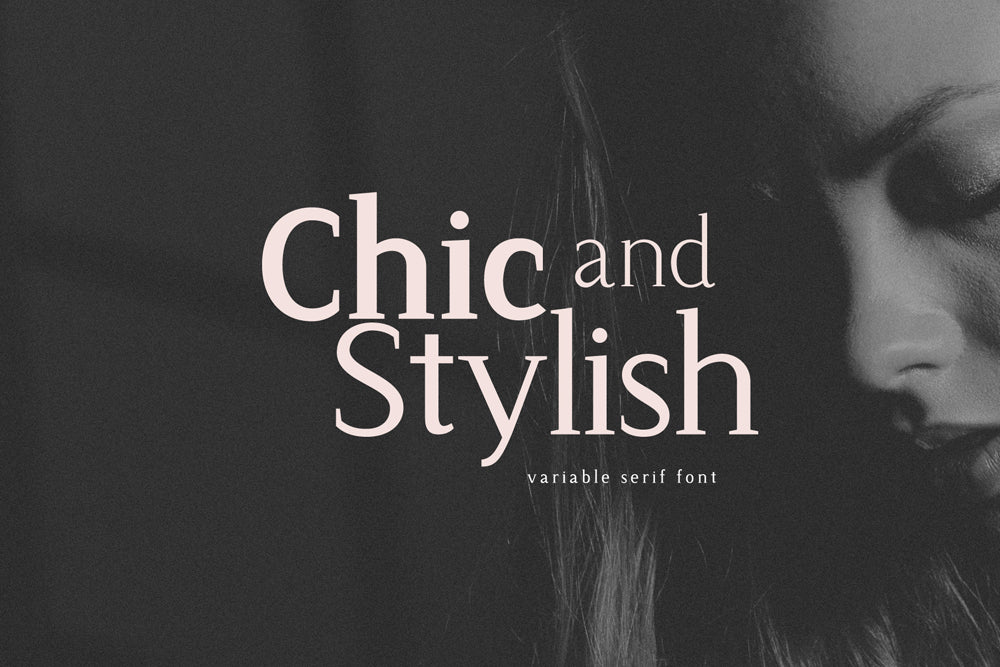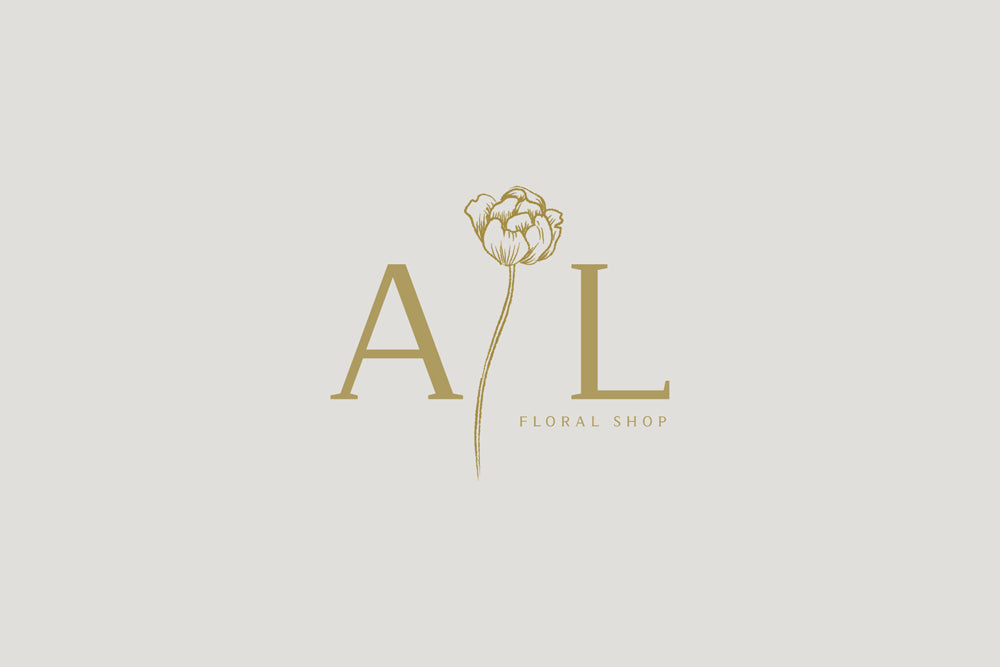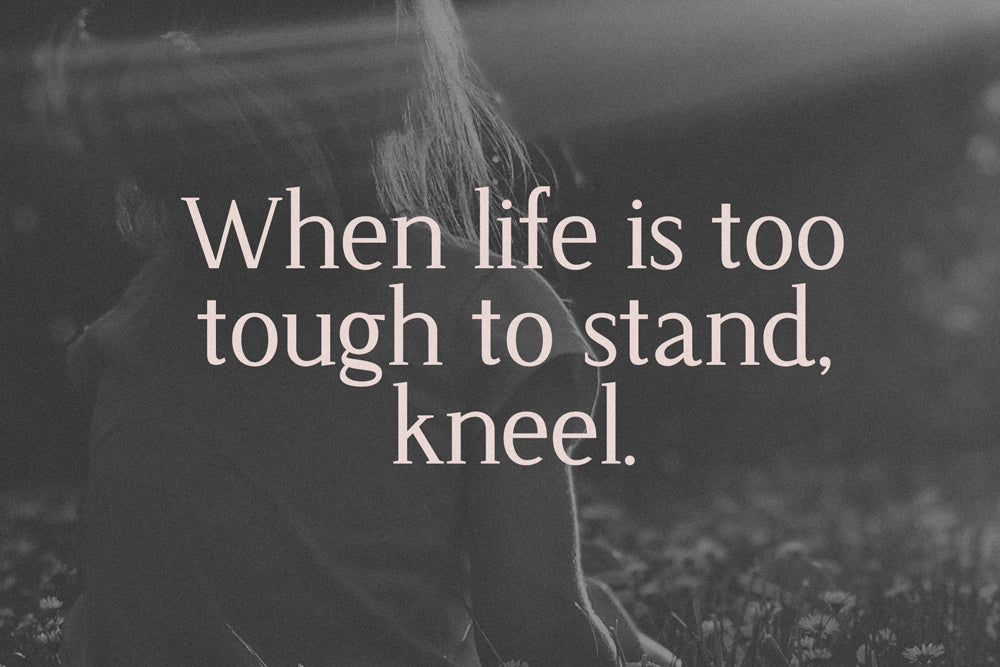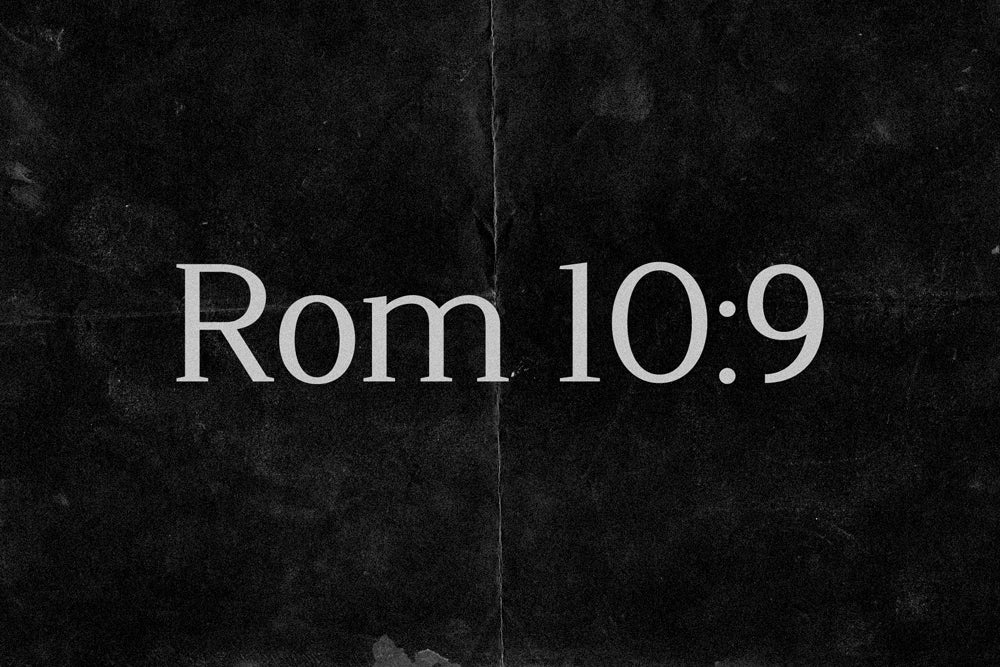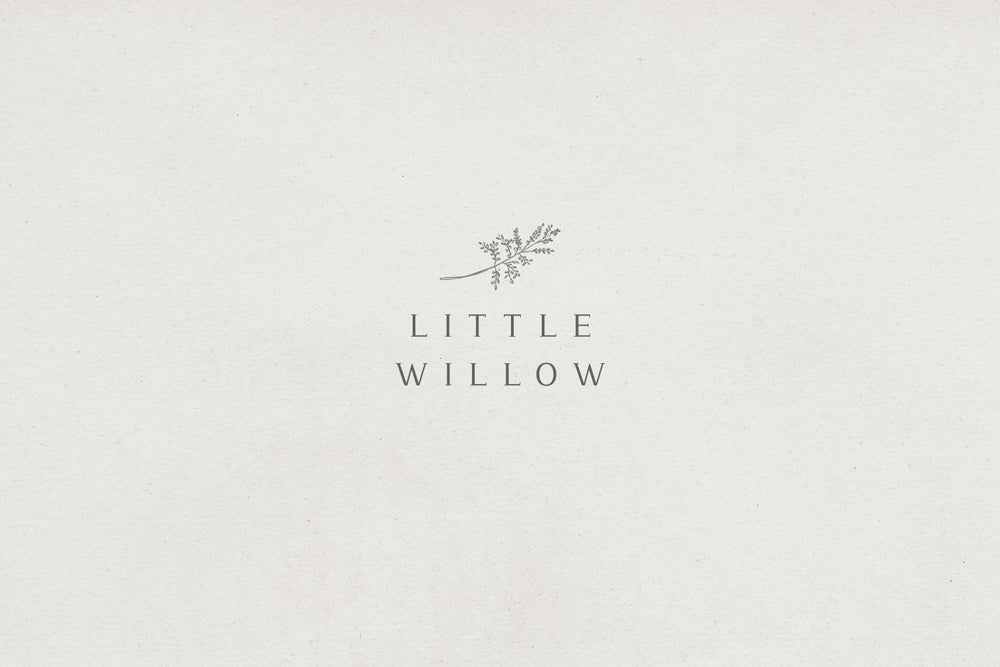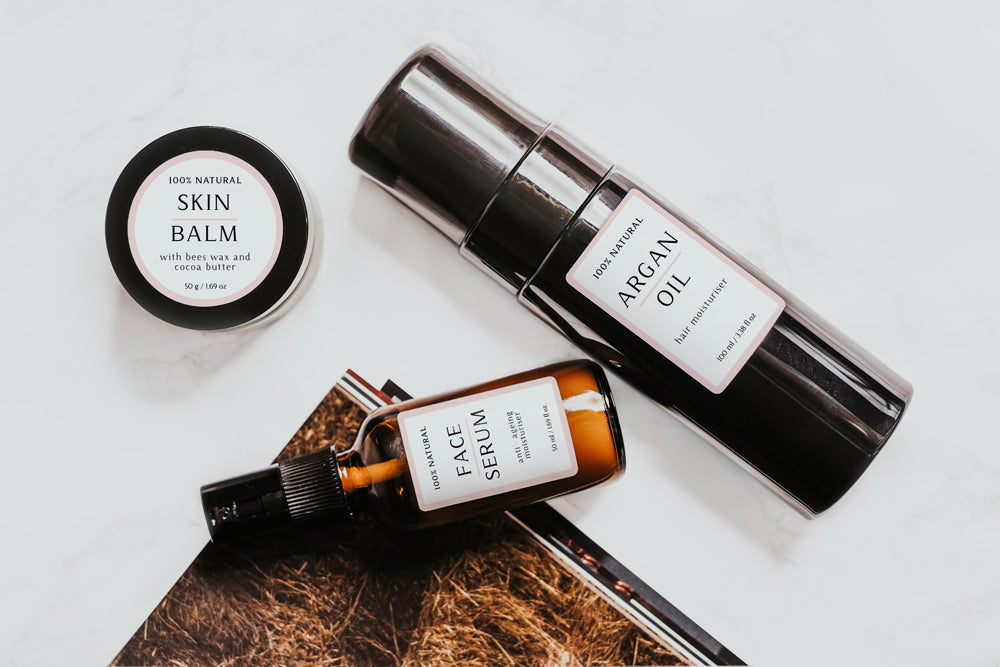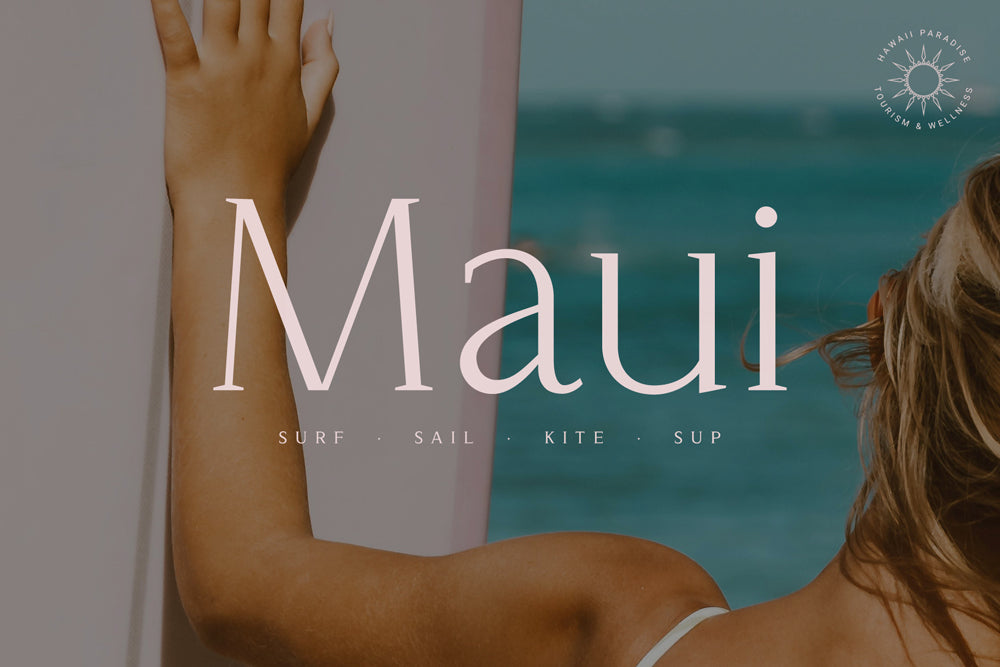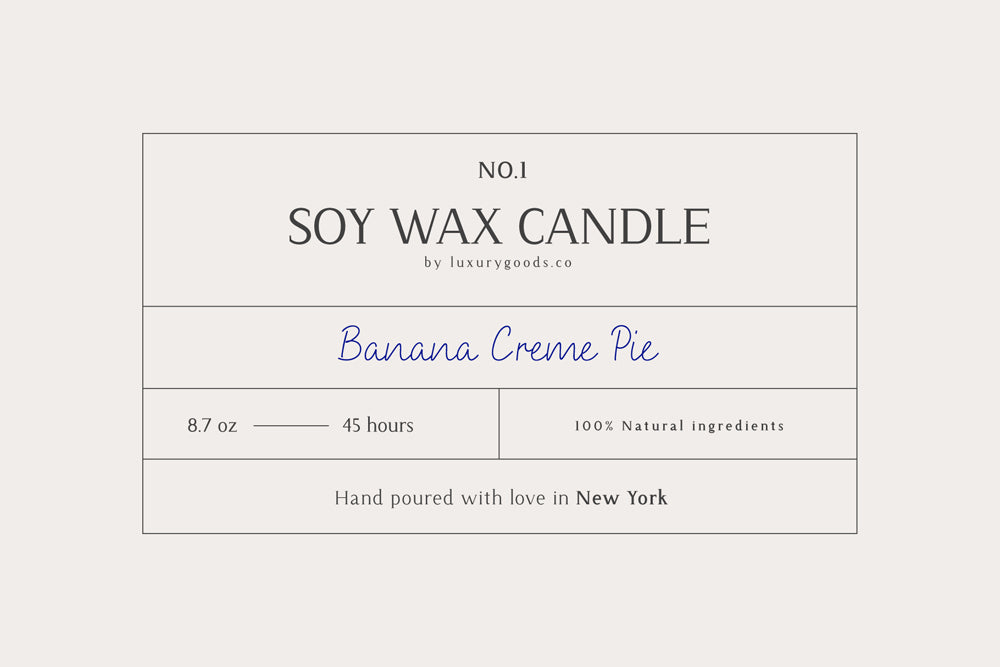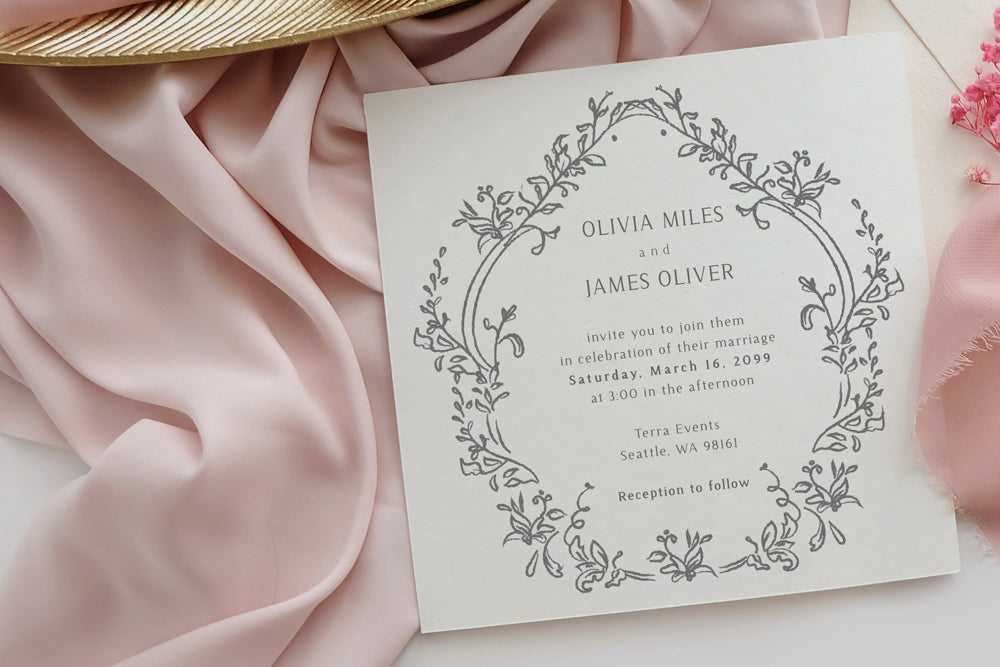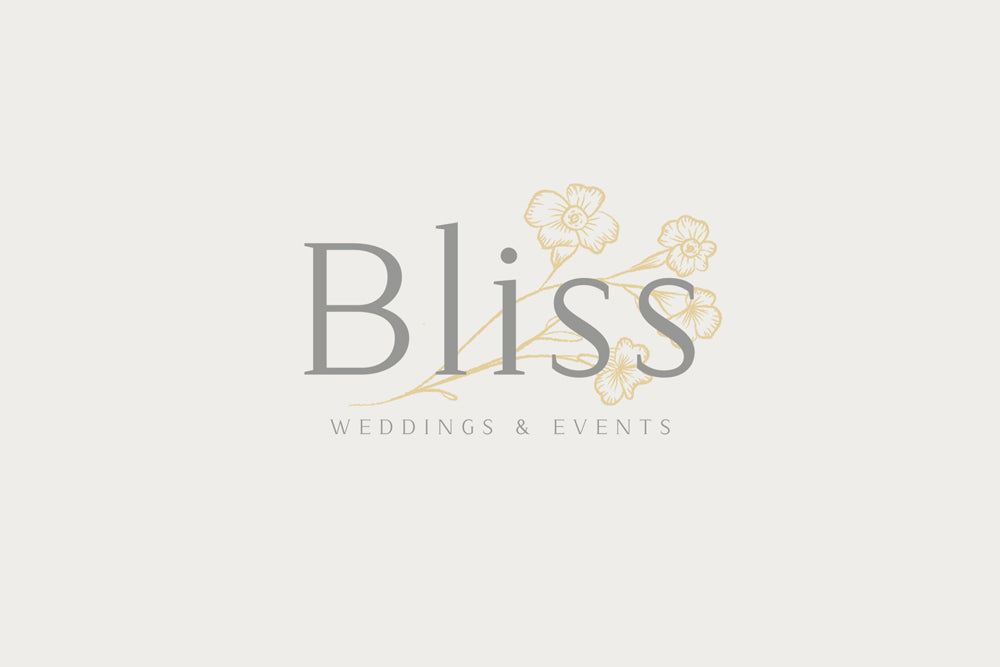
Chic and Stylish Variable Serif Font
Chic and Stylish is a multi-weight serif font that brings a touch of class and flair to your typography projects. With five distinct weights, this versatile variable font serves beautifully as both a display font and a body text font—from delicate small text to strong, impactful headlines. Each weight is meticulously crafted for seamless readability and aesthetic harmony, making it ideal for a wide range of design projects.
Spacing
For body text use the clean spacing that comes with the font as it looks better on the eye and it is more comfortable to read. For display use, set the spacing a little tighter.
- Chic and Stylish Extra Light, Light, Regular, Demi Bold and Bold